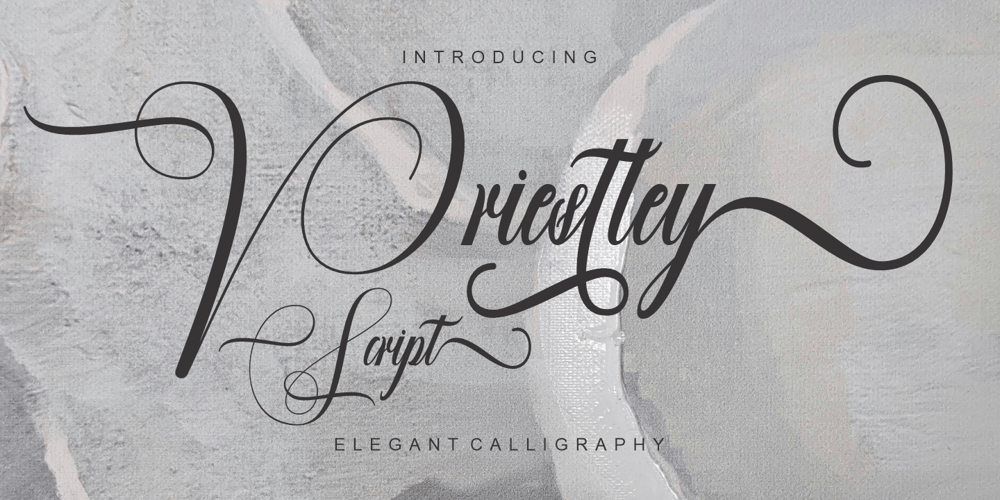
Priestley Script Font Family was designed by Yusliana M Isa and published by Gian Studio. Priestley Script contains 1 styles and family package options. Priestley script a new fresh & modern script with a handmade calligraphy style, decorative characters and a dancing baseline! So beautiful on invitation like greeting cards, branding materials, business cards, quotes, posters, and more!!Accessing Font Glyphs with Font Book on Mac :Thank you